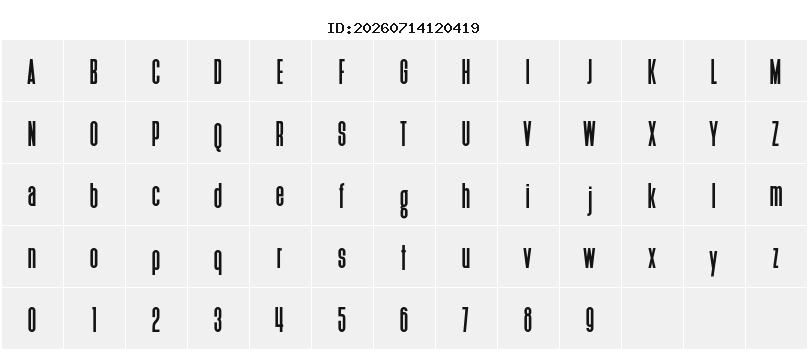
Heathergreen Preview
• Font Name: Heathergreen
• Full Font Name: Heathergreen
• Version: Version 1.00 July 19, 2016, initial release
About Heathergreen.otf
Heathergreen.otf is a modern, elegant sans-serif font designed for ultimate readability and visual harmony. Perfect for branding, headlines, web design, and print materials.